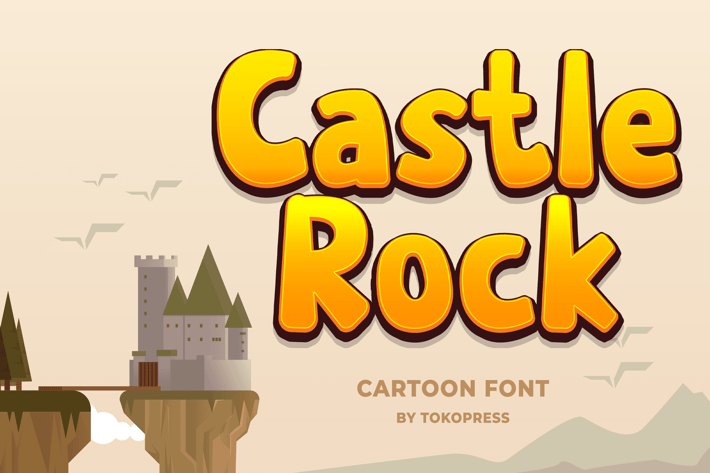
Castle Rock - Kids font
Castle Rock - Cartoon Font
Castle Rock is a bold, bouncy cartoon display font designed for playful storytelling and attention-grabbing titles. With its soft rounded terminals, high x-height, and thick stroke weight, it brings a cheerful and confident tone to kid-focused visuals. The friendly letterforms carry a chunky, geometric rhythm that feels both modern and nostalgic—ideal for educational branding, game interfaces, or book covers aimed at young readers.
Whether you're creating a jungle-themed game menu, promoting a kids’ fair, or designing classroom printables, Castle Rock adds clarity and excitement to your message. It’s engineered to evoke joy and energy, making it a perfect companion for children’s books, YouTube thumbnails, cartoon packaging, and early-learning materials. Stand out with a font that’s expressive, legible, and radiates warmth in every curve.
Key Features :
✔ Playfully Chunky Letterforms
Wide rounded strokes and smooth edges for a joyful, approachable aesthetic.
✔ Kid-Focused Structure
Easy-to-read shapes ideal for young audiences, educational tools, and children’s media.
✔ Flexible for Print & Digital
Perfect for apps, posters, merchandise, labels, or game UI with consistent legibility.